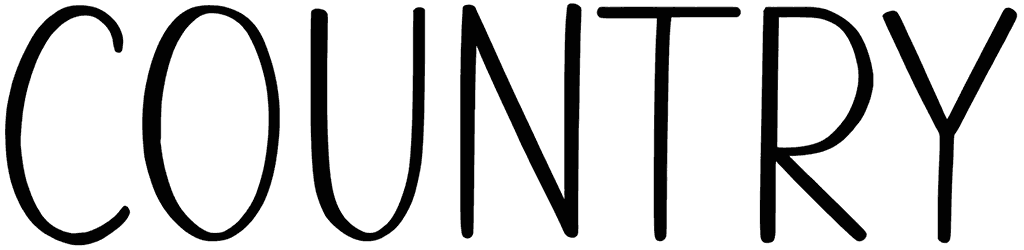
Country Font
The usage of the handmade and approachable effect of sans serif font in the headers, digital apps, websites, or other sites could be connected to the themes of innovation and modernity.
This neat font has the potential for highlighting any scheme. Nothing can destroy the appeal of this masterwork, even the lack of lowercase letters. Our checklist feeds you with a variety of choices, such as Country font, so see around and pick the best of them.